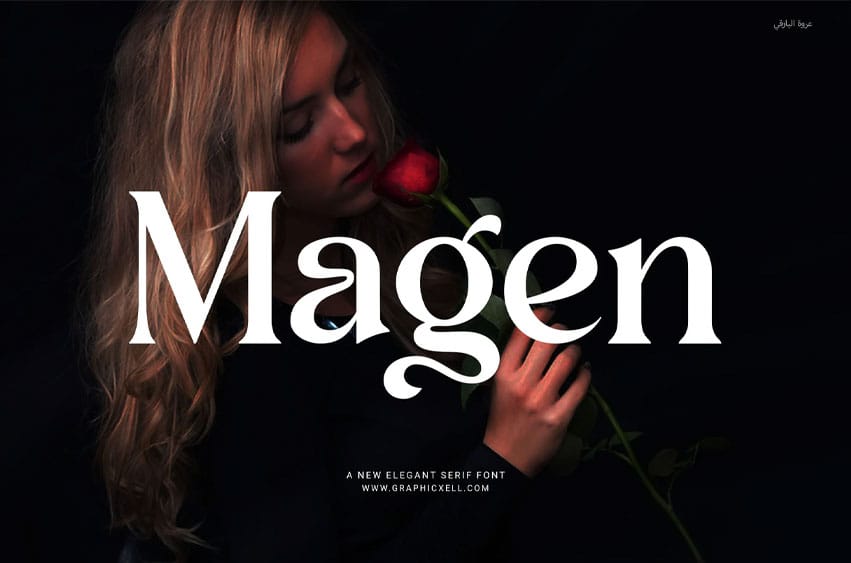
Magen Font Modern Serif Font is a sharp and elegant serif typeface designed for today’s creative needs. Combining modern style with classic sophistication, this font is ideal for designers seeking balance, beauty, and high readability. Whether you’re designing a logo, website, product label, or magazine, Magen brings a fresh yet timeless look to your work.
The font features well-proportioned letterforms that make layouts clean and professional. Its sharp lines and soft curves blend smoothly, creating a visual harmony that’s easy on the eyes. With carefully designed ligatures, Magen adds a natural flow to your text, making it more engaging and refined.
Magen stands out in both digital and print formats. It’s perfect for branding projects, high-end fashion labels, editorial layouts, boutique packaging, restaurant menus, and creative advertising. Because of its versatile nature, it fits seamlessly into minimalist designs or more expressive layouts.
Additionally, Magen is easy to use and pairs beautifully with sans-serif fonts, giving you more room for creativity. Its balanced contrast and unique details make it ideal for designers who want to leave a lasting impression.
Why Choose Magen Modern Serif?
- Elegant and modern serif style
- Functional ligatures for improved text flow
- Proportional, clean letterforms
- Works for logos, websites, packaging, and more
- Ideal for fashion, food, and editorial design
- Great in both print and digital formats
If you’re looking for a font that is bold, classy, and easy to read, Magen Modern Serif will elevate your designs with grace and professionalism.